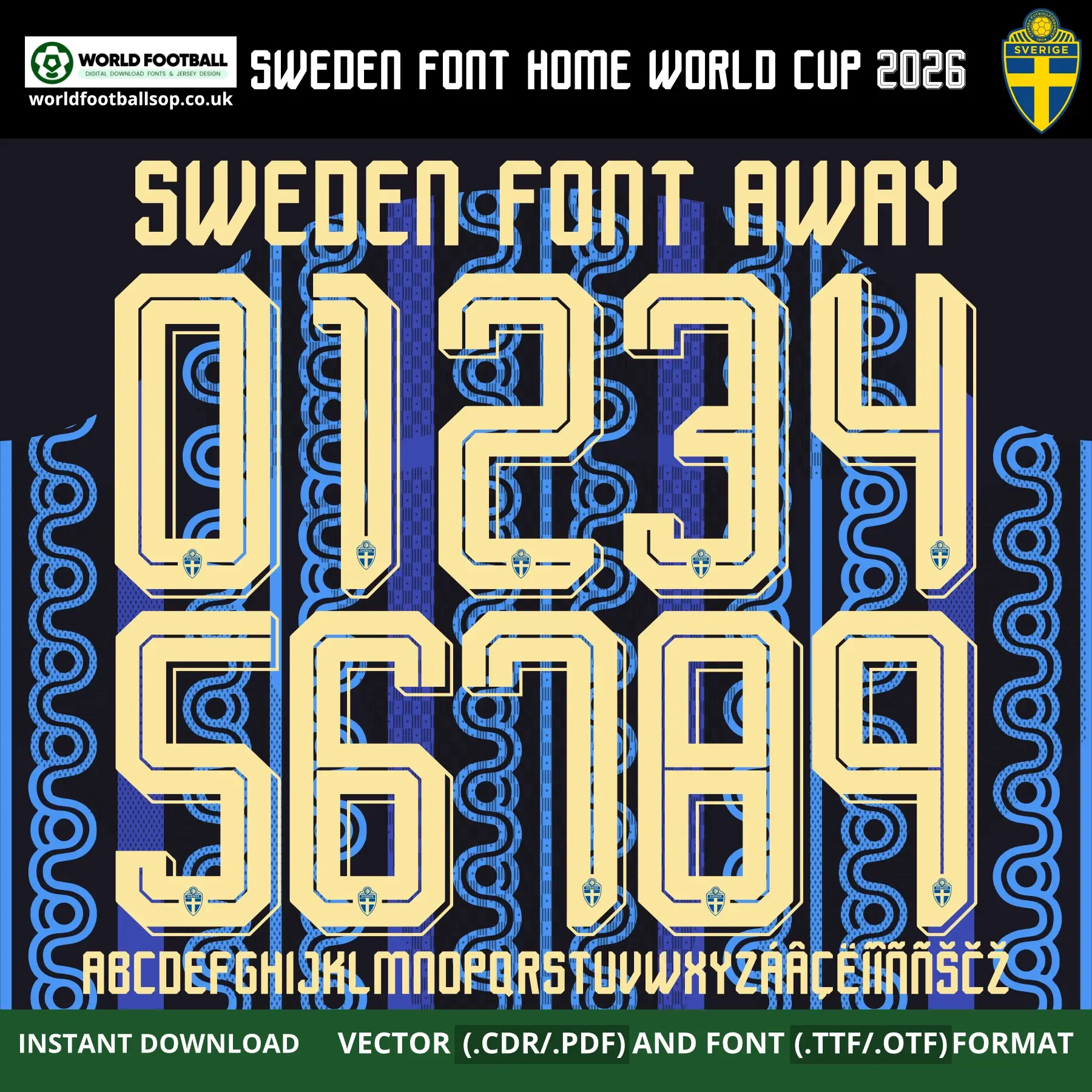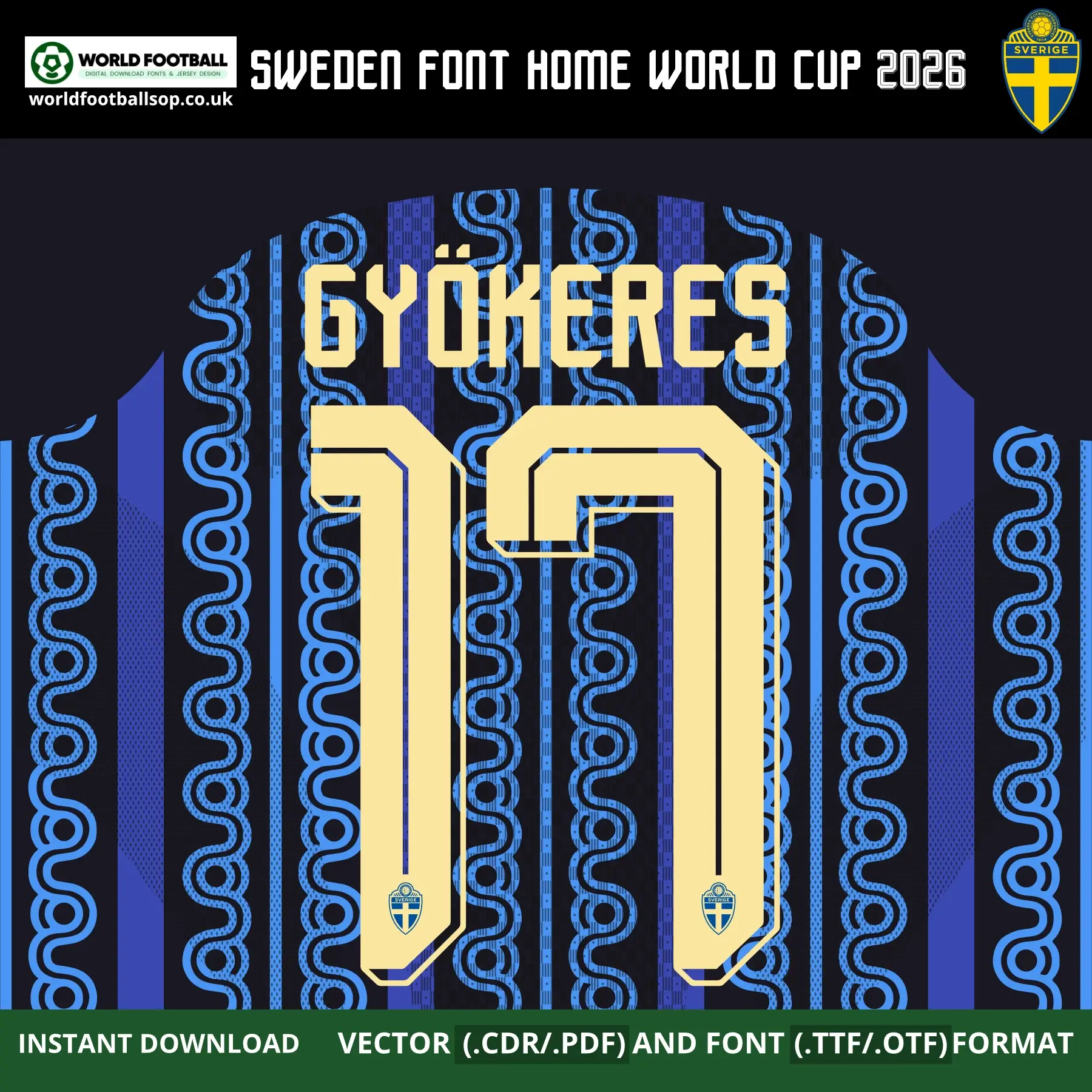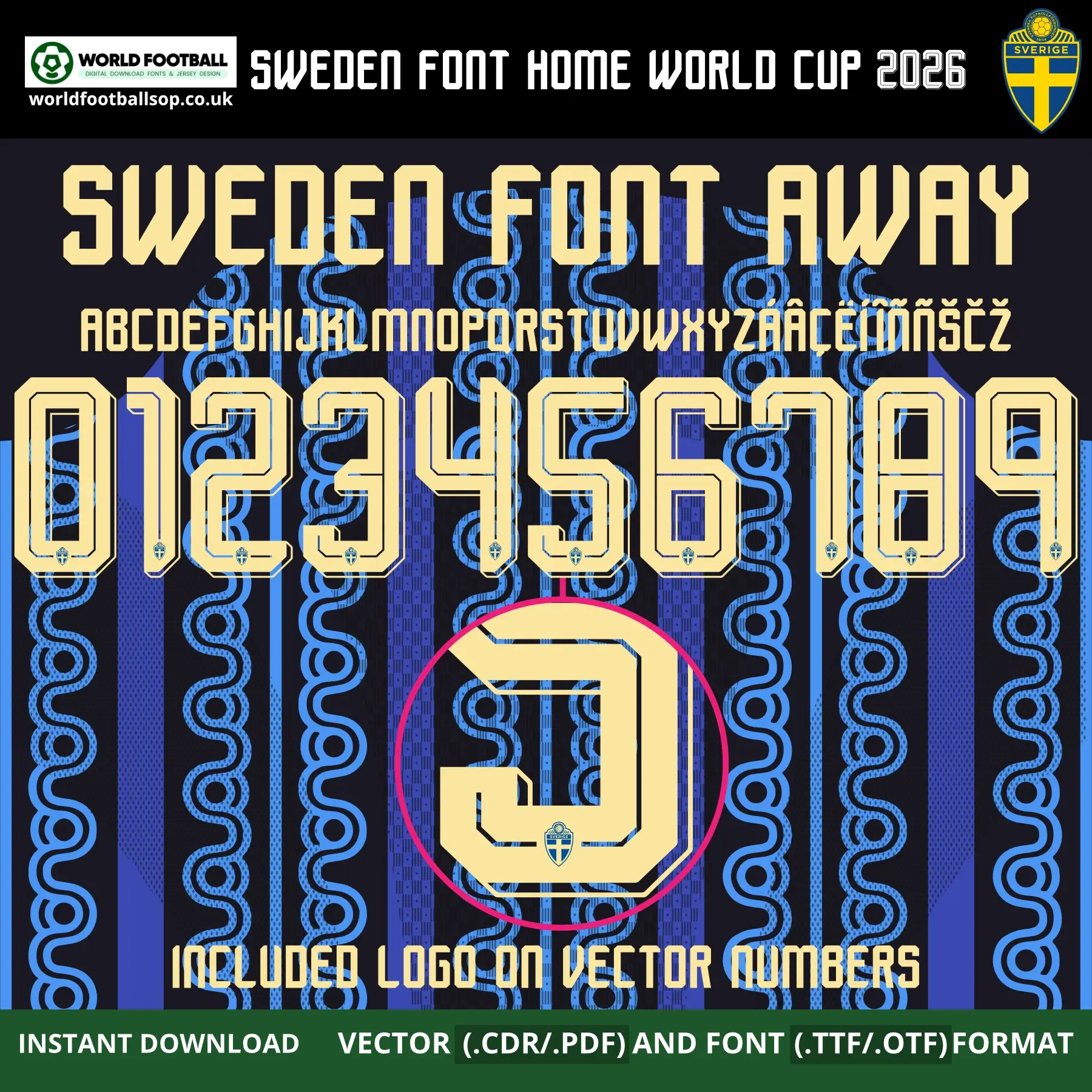
Sweden Away Font World Cup 2026 – Official‑style Jersey Typography
This Sweden Away Font World Cup 2026 kit recreates the bold, distinctive lettering used on Sweden’s striking dark navy away shirts for the 2026 FIFA World Cup in USA, Mexico and Canada. The tall, wide numbers and letters feature a warm cream/gold fill with a sharp multi-line inner-outline detail running through each character, set against the deep navy background with bold vertical blue stripes and intricate Nordic serpentine wave pattern on the sides – one of the most visually distinctive kits of the entire 2026 World Cup. It is perfect for fans, designers and printers who want authentic‑looking names and numbers on custom Sweden away kits and football graphics.
Full uppercase alphabet A-Z and numbers 0-9 with extended Swedish and international accents (Á, Â, Ç, Ë, Í, Ï, Ñ, Š, Č, Ž)
Preview layouts showing complete number set and example name/number combo – GYÖKERES 17
Key features & benefits
World Cup accuracy: Inspired by the exclusive Sweden Away Font World Cup 2026, not a generic typeface
High legibility: Bold cream/gold forms with multi-line inner detail keep numbers clear on both TV and print designs while maintaining Sweden’s unique dark navy away identity